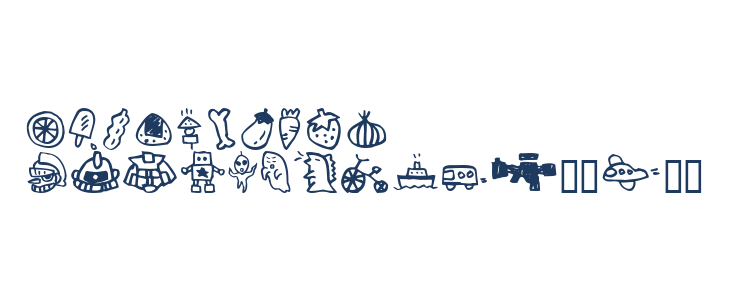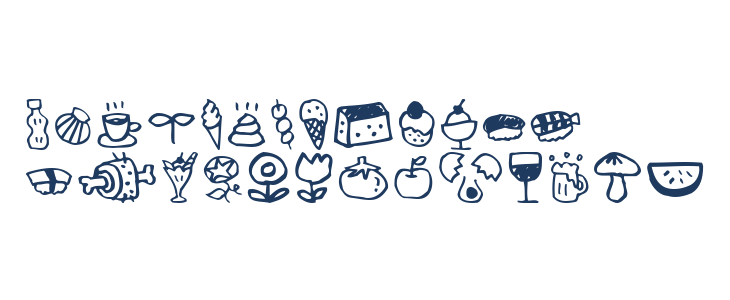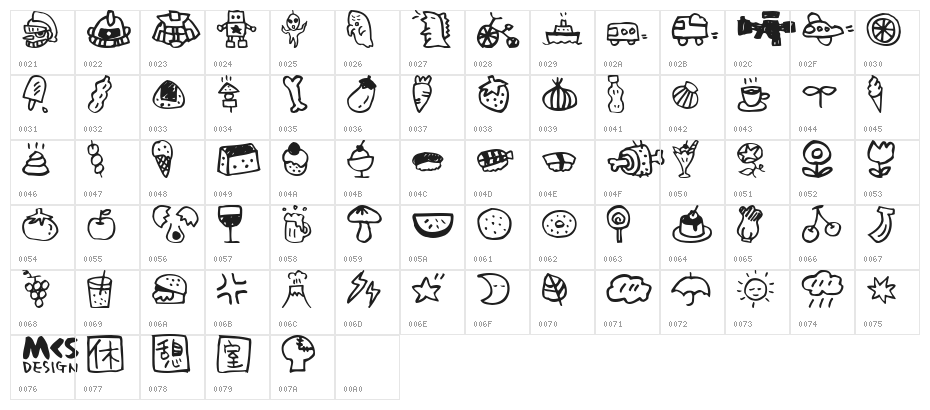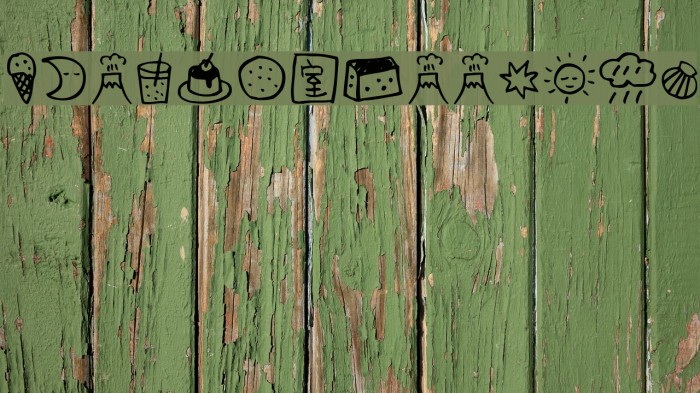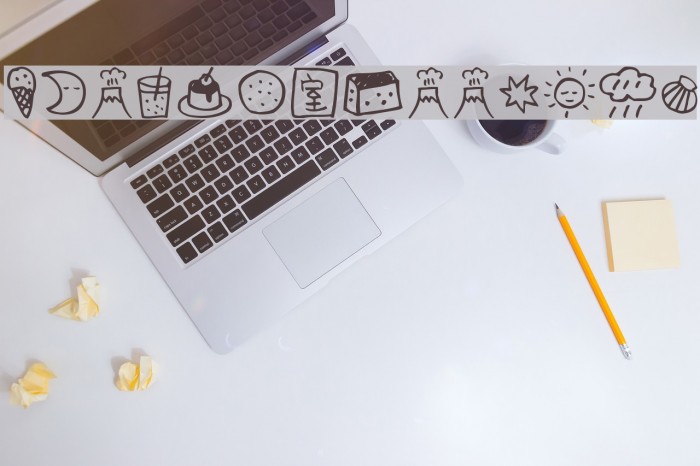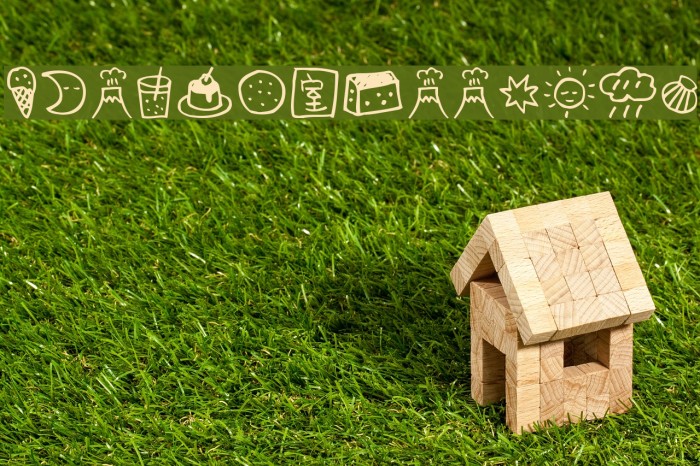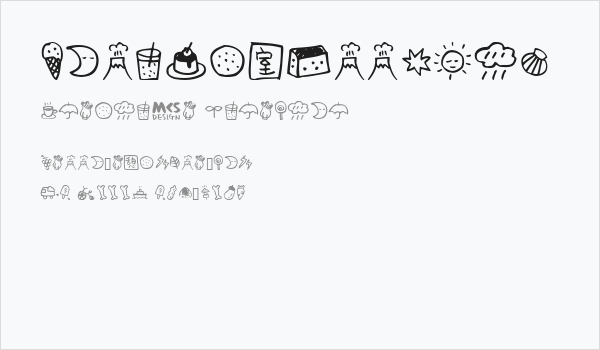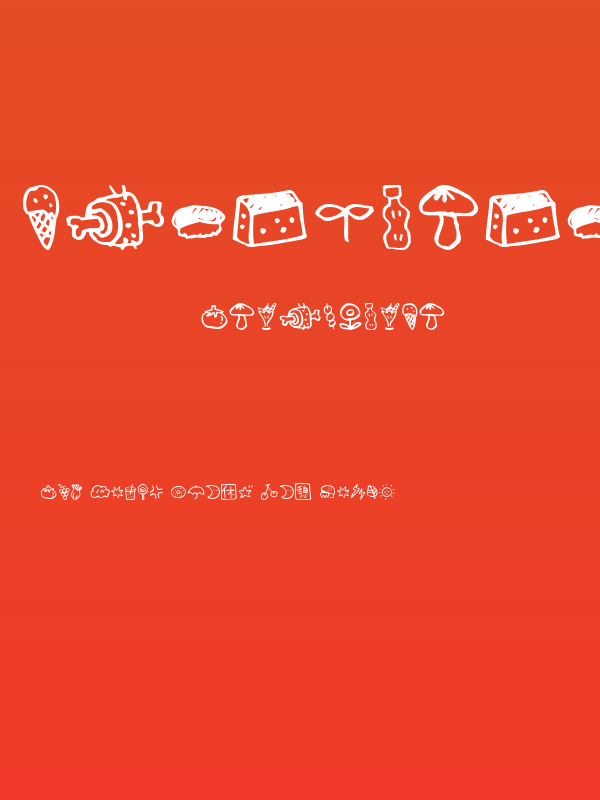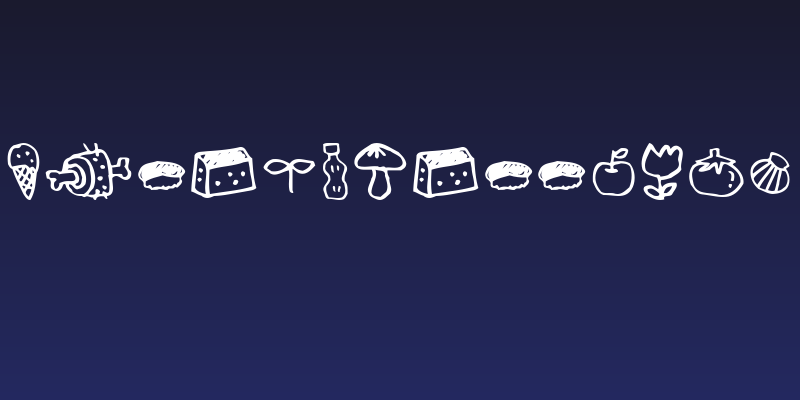
HolidayIllustB Font
HolidayIllustB Description
A playful, hand-drawn dingbat font featuring whimsical illustrations of food, drinks, nature, weather, and various objects. The strokes are bold and uneven, giving a casual, sketch-like appearance with a consistent line weight and loose, organic forms.
| Overall Style | Playful, Decorative, Hand-drawn |
| Use Case | Icons, Decorative elements, Themed graphics |
| Proposed Projects | ChildrenΓ’β¬β’s books, party invitations, educational materials, posters, scrapbooking, informal branding. |